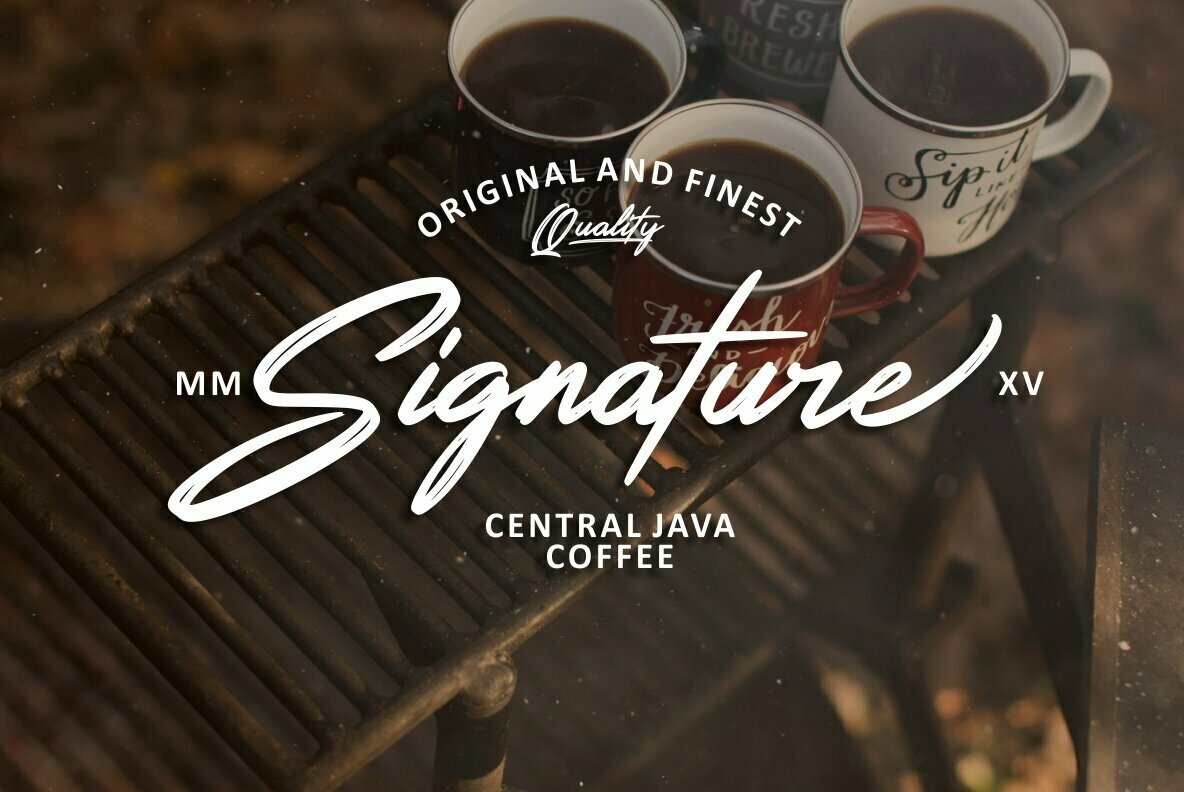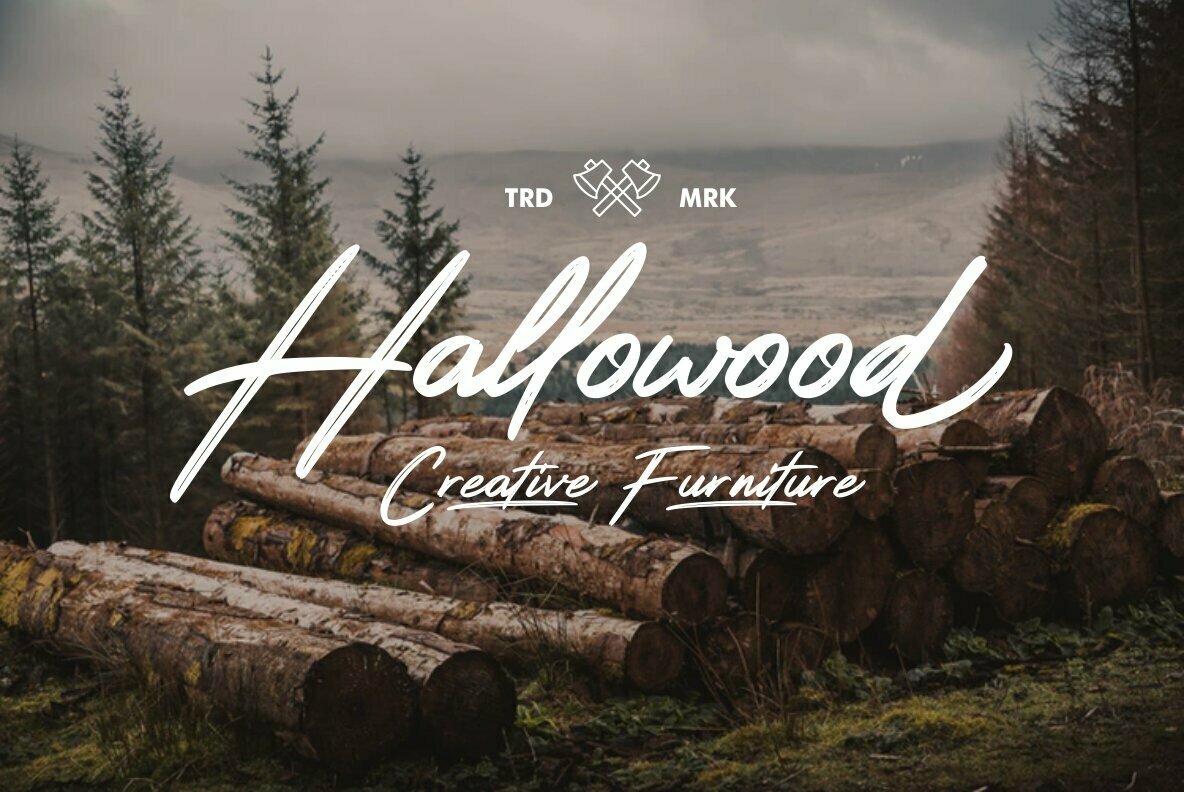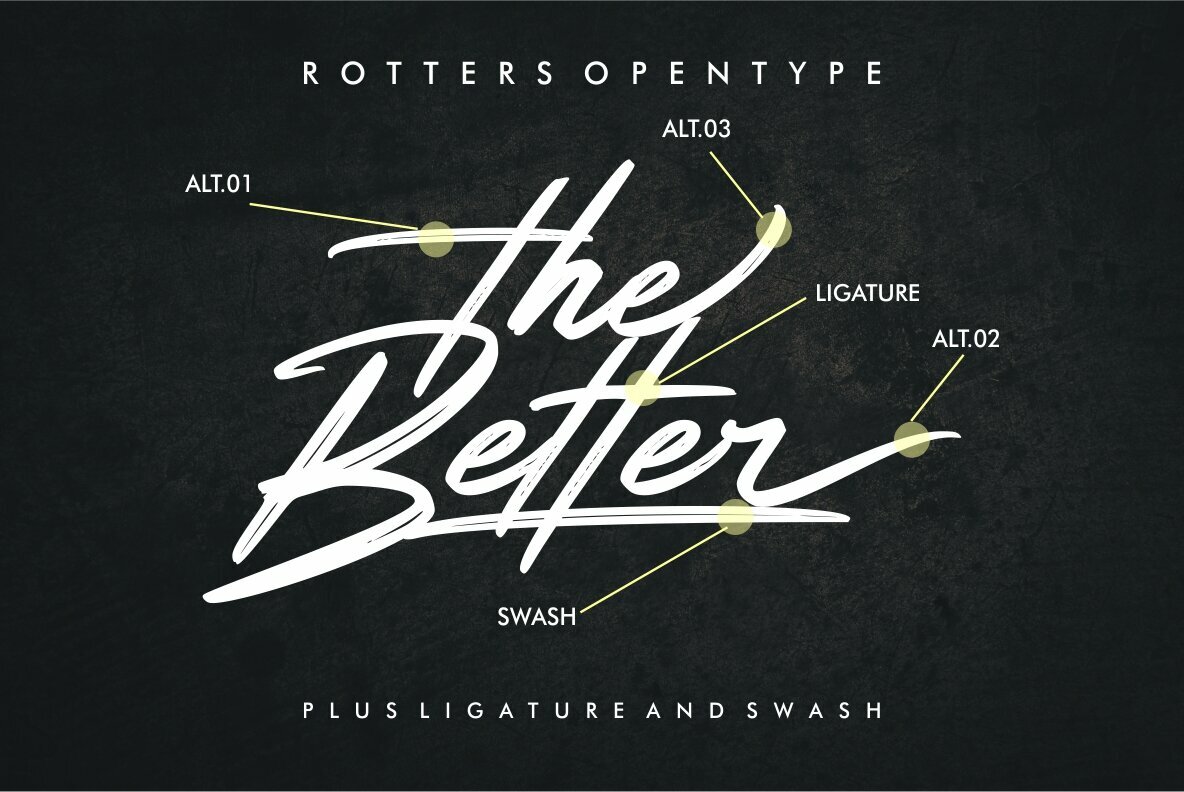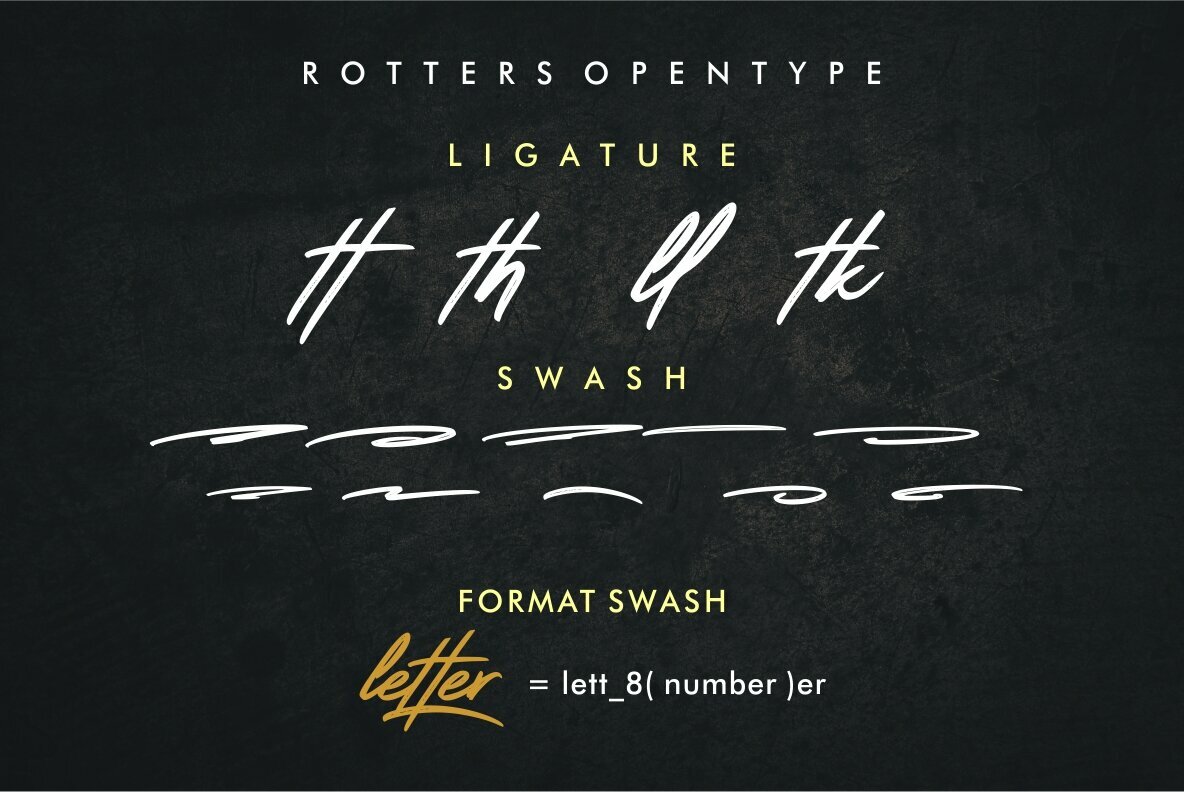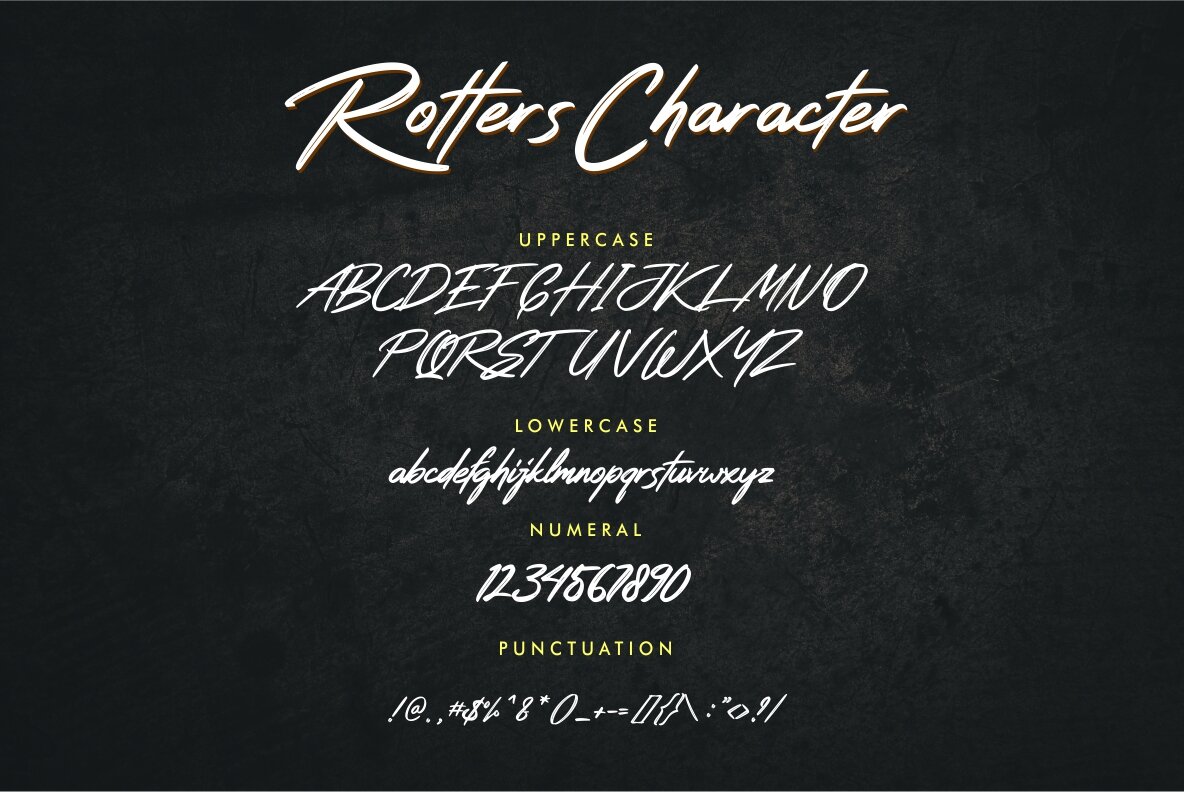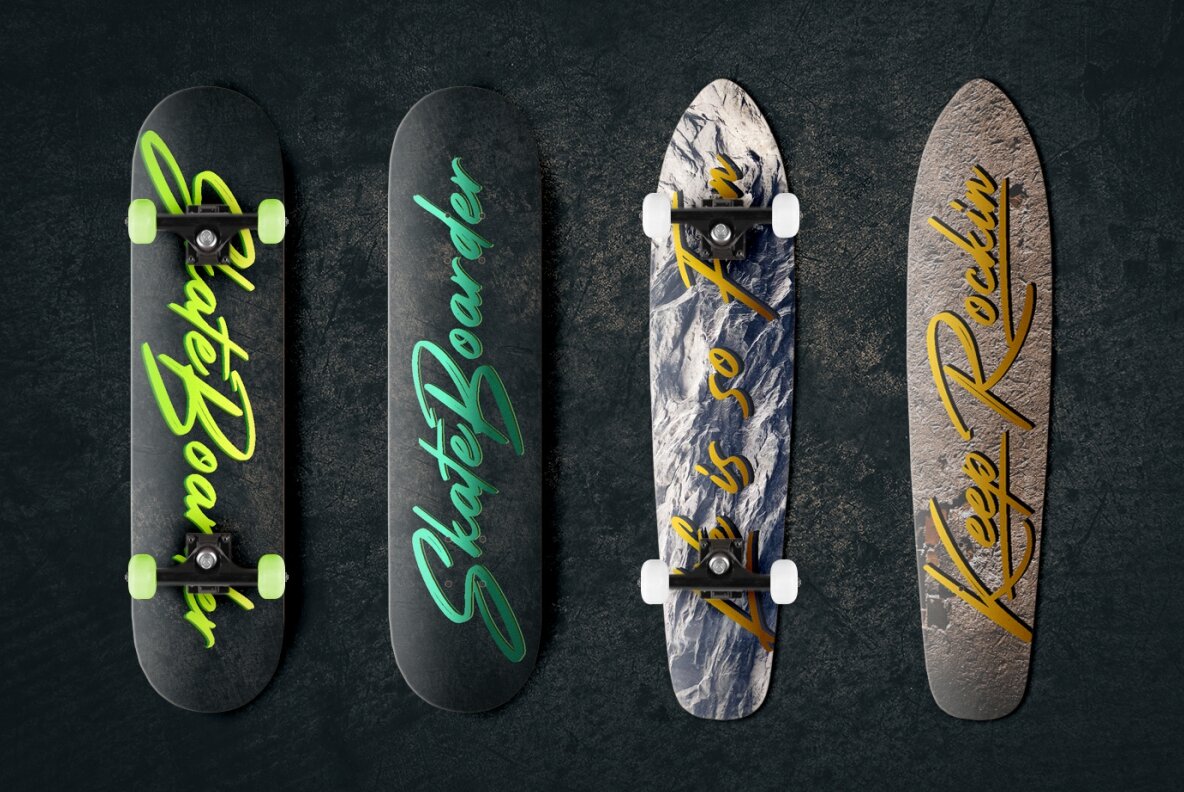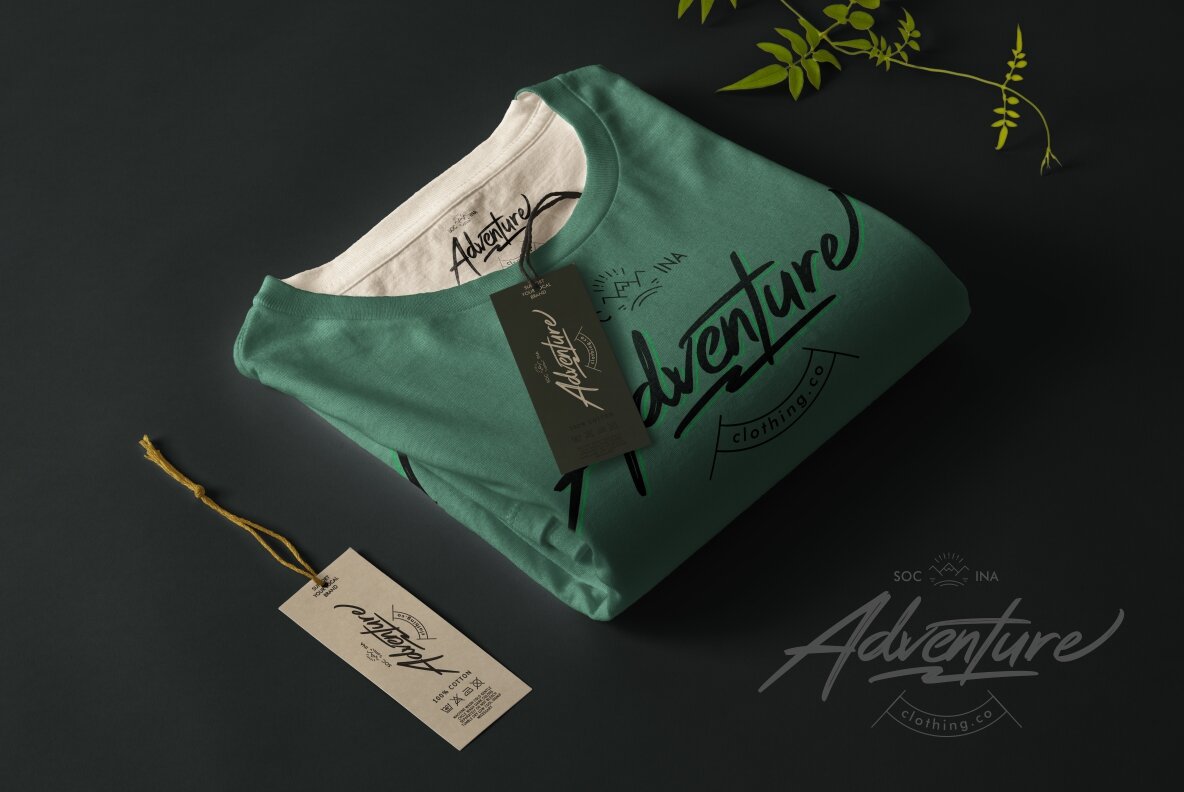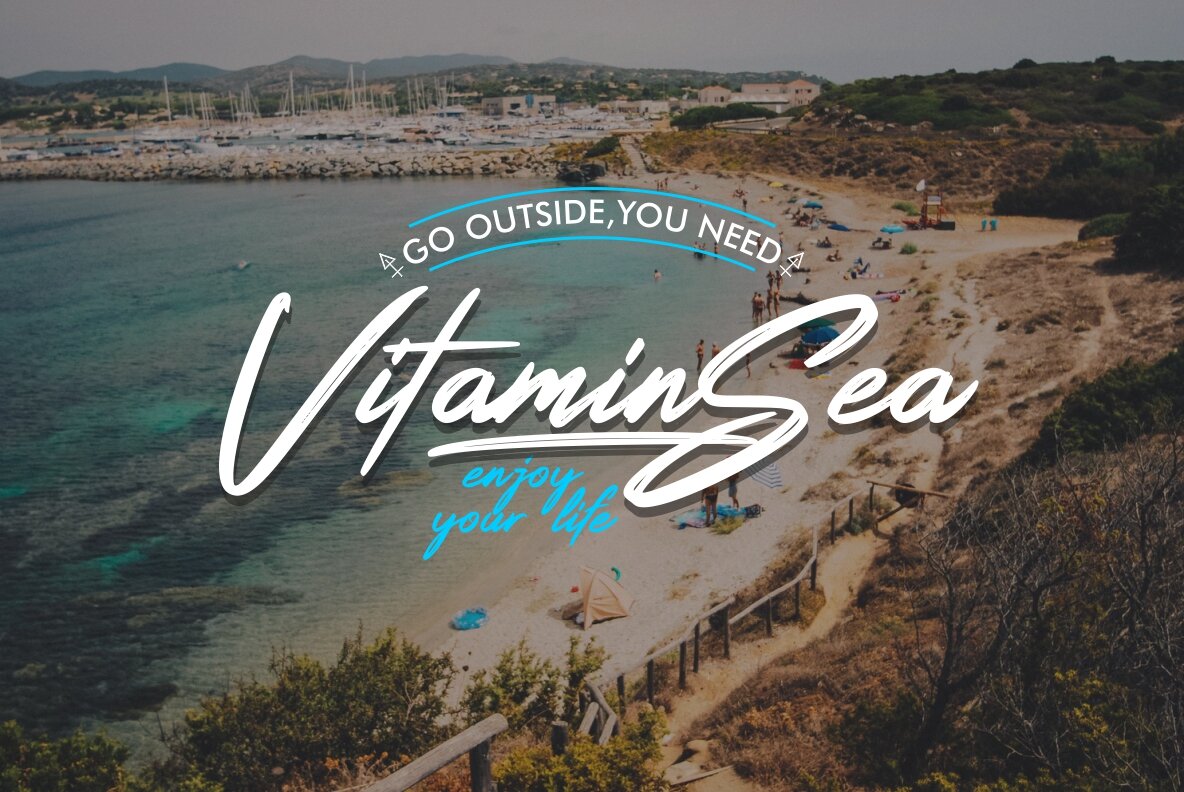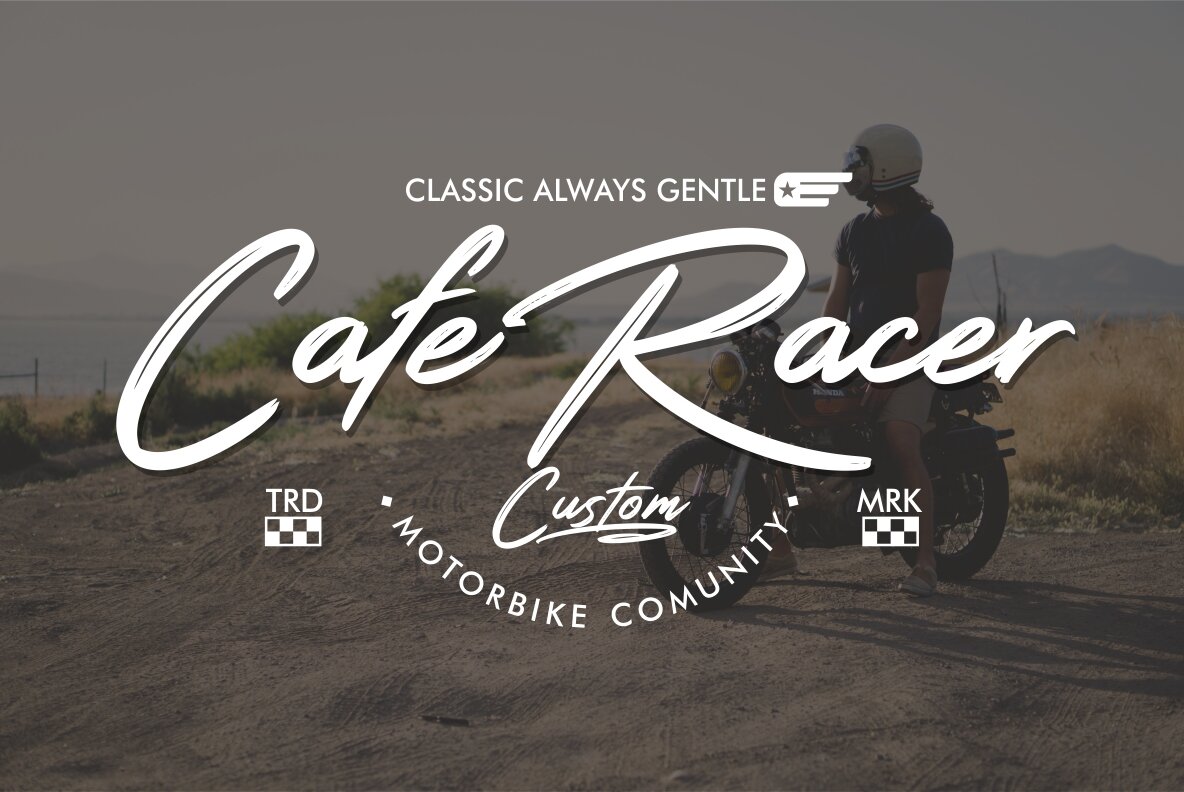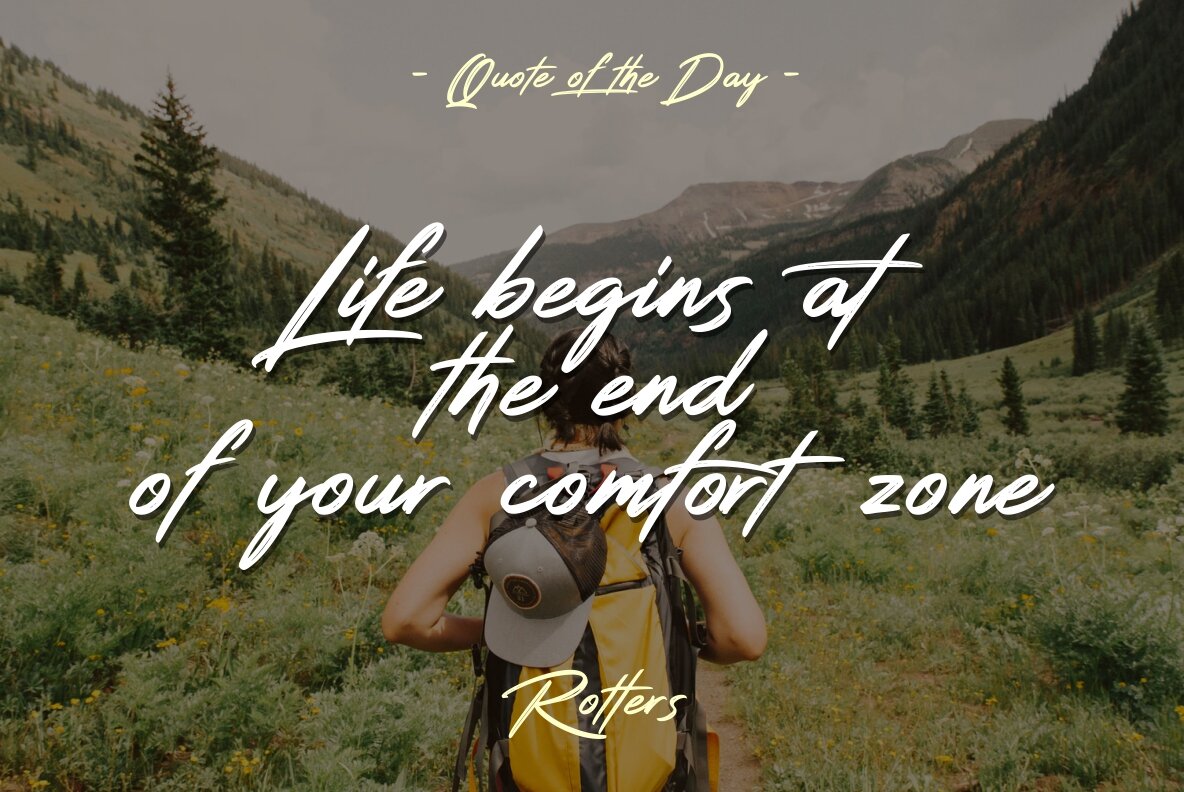
Rotters Font
Rotters
Rotters carries the charisma of handwritten artistry through its modern brush style, characterized by rough, natural strokes. This distinctive font finds its niche in a multitude of applications, ranging from logos and signatures to branding projects and wedding designs. Its versatility is ideal for social media posts, advertisements, and packaging, seamlessly blending into labels and photography watermarks as well. Rotters requires applications supporting OpenType features such as Adobe Illustrator CS or Photoshop CC to access its alternate glyphs. This brush font enhances design projects, lending a personal touch to any creative endeavor.Rotters: A Dynamic Brush Typeface